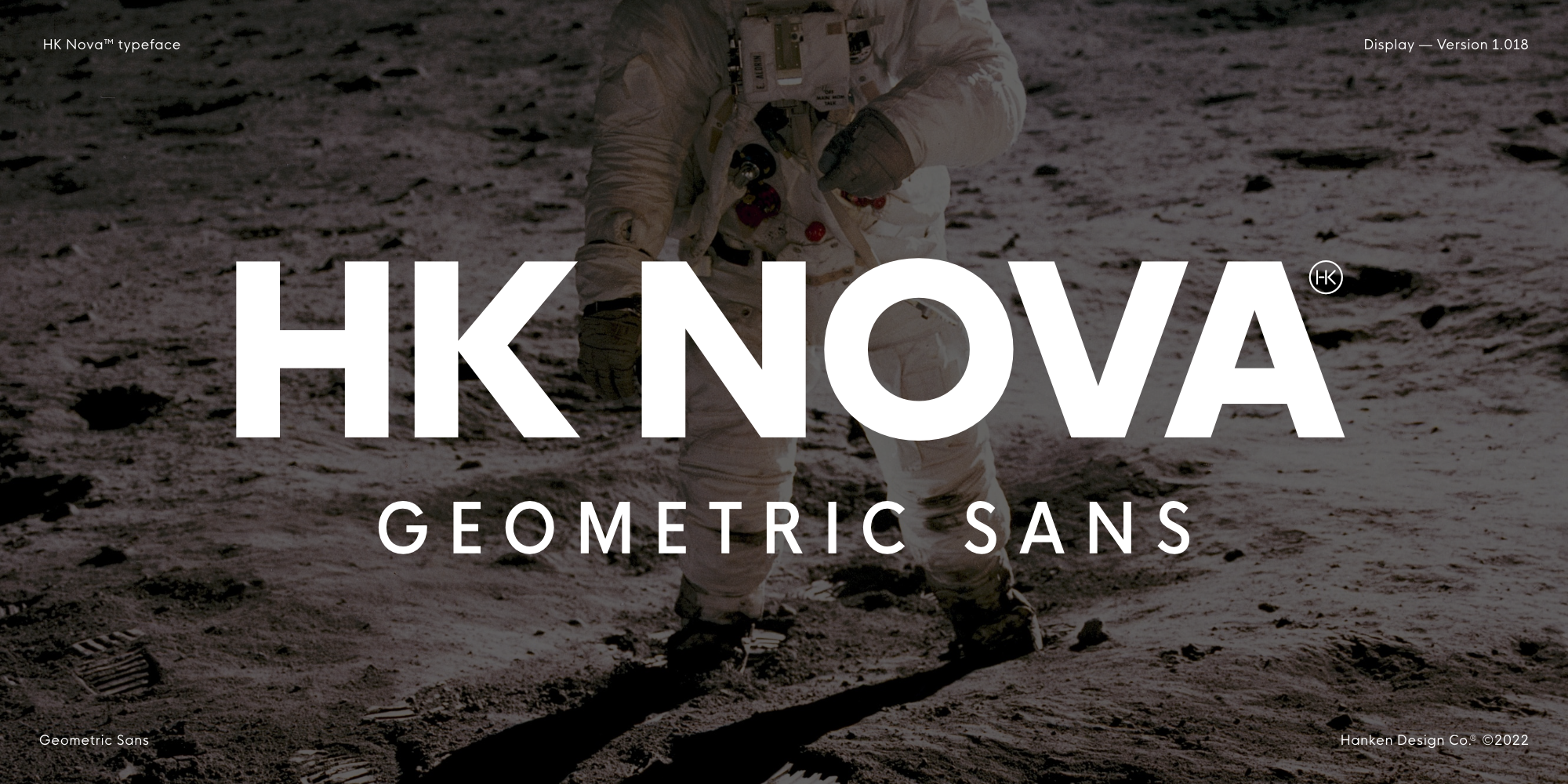
Perfect for contemporary tech startup branding, modern corporate communications, progressive design agency portfolios, innovative product packaging, cutting-edge website interfaces, forward-thinking marketing campaigns, digital transformation materials, and next-generation business applications.
This font is exciting because it embodies the innovative spirit and stellar excellence of contemporary design with cosmic-inspired letterforms that capture the boundless potential and technological sophistication found in modern business innovation and digital transformation.
Launch into the future of design excellence with HK Nova Font Free Download, a cosmically inspired typeface that embodies the innovative brilliance and stellar sophistication of next-generation business communication. This exceptional font brings the boundless potential and technological elegance of stellar innovation to contemporary design projects, making it indispensable for progressive companies, tech startups, and forward-thinking organizations seeking to convey the cutting-edge excellence and infinite possibilities of modern business transformation and digital innovation leadership.
HK Nova Font features precisely engineered letterforms with stellar characteristics and innovative proportions that immediately communicate technological advancement and progressive sophistication. The expertly crafted characters combine cosmic aesthetics with optimal functionality, creating immediate associations with business innovation, digital transformation, and the boundless potential that defines authentic technological leadership and progressive business excellence throughout modern corporate and startup communities worldwide.
The font's remarkable innovative character makes it ideal for technology companies, progressive startups, and forward-thinking business organizations where conveying cutting-edge sophistication and digital leadership is essential for establishing market credibility and attracting innovation-focused stakeholders. Whether you're designing materials for tech startups showcasing disruptive innovation, creating brand identities for digital transformation consultancies emphasizing progressive solutions, or developing communications for venture capital firms investing in future technologies, HK Nova Font delivers the authentic innovation aesthetic that resonates with audiences seeking genuine technological advancement and business transformation excellence.
Technology professionals and business innovation specialists worldwide choose the HK Nova Font Free Download for projects requiring progressive authenticity and stellar business appeal. The font works exceptionally well for software development companies promoting cutting-edge solutions, innovation conferences showcasing technological breakthroughs, digital agencies emphasizing progressive design thinking, and any organization seeking to establish connections with audiences who appreciate technological innovation and the sophisticated potential of modern business transformation and digital excellence.
The comprehensive HK Nova Font family includes extensive weights and variations that work systematically together, enabling progressive communicators to create sophisticated hierarchies for complex innovation content. Each variation maintains the signature stellar character while providing complete design flexibility for diverse technological applications, from detailed technical documentation to bold innovation advertising campaigns that capture attention in competitive technology markets.
This typeface excels in both traditional business presentation environments where innovation credibility is paramount and modern digital platforms where technological content must engage sophisticated audiences across multiple devices. The font's technical precision ensures optimal performance across all progressive communication channels, from printed innovation materials to responsive technology websites that must maintain cutting-edge appeal across various screen technologies.
HK Nova Font's stellar aesthetic enhances the perceived value of innovation content while maintaining the contemporary appeal necessary for engaging modern business audiences who appreciate technological sophistication and forward-thinking design principles. The font's progressive character helps establish immediate credibility with innovation audiences while projecting the business authority that defines technological leadership.